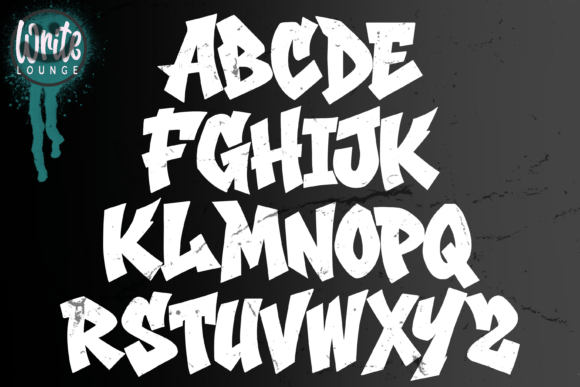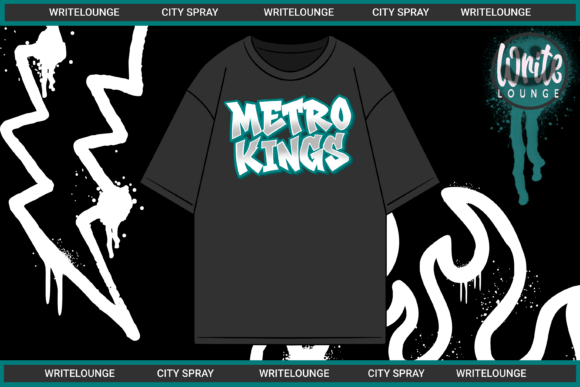
City Spray Font
City Spray is a bold and dynamic graffiti display font that brings authentic street style into your designs. Inspired by urban spray paint lettering, this typeface combines sharp edges, playful movement, and a raw hand-drawn energy that makes every word stand out.
Perfect for streetwear designs, album covers, gaming graphics, hip hop projects, posters, stickers, merchandise, social media content, and bold branding, City Spray captures the true vibe of graffiti culture.
With its strong outlines and eye-catching shapes, this font is made to create powerful headlines, logos, and artworks that demand attention. Whether you want to give your design an urban, wild, or underground look, City Spray is the perfect choice.